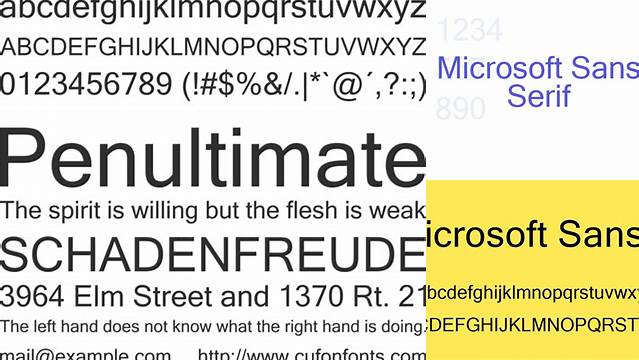
Hey guys, let's dive into the world of typography and explore the Microsoft Sans Serif font, a classic choice that's been a staple in the digital realm for ages. You can get a Microsoft Sans Serif font free download easily, and we'll walk you through everything you need to know, from where to find it, to how to use it, and why it's still relevant today. This comprehensive guide will cover everything, so buckle up and let's get started!
Microsoft Sans Serif Font: What is It?
So, what exactly is the Microsoft Sans Serif font? Simply put, it's a humanist sans-serif typeface that was created by Matthew Carter. You've probably seen it countless times without even realizing it. It's designed to be incredibly legible, making it ideal for both on-screen display and print. The font family is known for its clean, straightforward design, which makes it a versatile choice for a wide range of applications. It has a strong, almost understated presence, making it perfect for conveying information without drawing undue attention to itself. Its neutral character allows it to blend seamlessly with other design elements, or to stand out boldly. Microsoft Sans Serif is not just a font; it's a symbol of clarity and approachability in the digital world. It has a certain timeless quality that makes it just as relevant today as it was when it was first introduced. It’s a workhorse font that can handle pretty much anything you throw at it, from body text to headlines. Its design is focused on clarity and ease of reading, making it ideal for everything from the smallest text to large-scale displays. Many operating systems and applications use it as a default, so you’ll likely encounter it everywhere. The font’s straightforward design makes it a dependable option for professionals, designers, and casual users. Its neutrality means it won't clash with other design elements and can complement a variety of other fonts. So, understanding what it is and why it's so popular is key to appreciating its value in design and daily computing.
The History and Origins of Microsoft Sans Serif
Alright, let's talk about the history of the Microsoft Sans Serif font. It was designed by Matthew Carter for Microsoft in the late 1980s and early 1990s. Carter, a renowned type designer, created it as a system font for Windows. It was designed specifically to improve readability on computer screens, which were often of lower resolution back then. Its design was optimized for this purpose, making it easy to read at various sizes and resolutions. The goal was to create a typeface that was clear, concise, and easy on the eyes, and it's safe to say they succeeded. As computers and displays evolved, so did the need for fonts that could handle the changes, and Microsoft Sans Serif has consistently met these needs. It quickly became one of the standard fonts across the Windows operating system. The font’s purpose and creation story underline its functional design and adaptability. Its enduring presence illustrates its effectiveness and continued usage over the years. The design reflects the technology of its time, while also having the adaptability to be used in the modern era. The font was designed to be scalable and legible in different settings, which speaks to its enduring appeal. Its development history highlights how the font's design and practical aspects have made it a staple. This history provides insights into its design and its evolution within the landscape of typography.